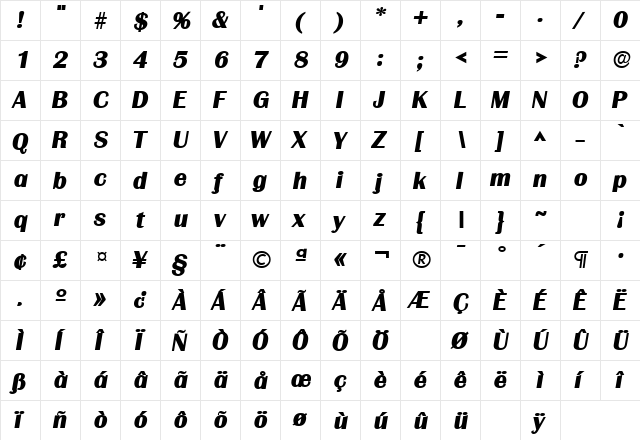
GrenobleLH Bold Italic Font Preview
Design Context for GrenobleLH Typeface
GrenobleLH takes a measured approach to typography — its balanced proportions and neutral character make it a reliable workhorse for both digital and print work. Its italic angle brings a sense of urgency and motion to the letterforms. Its bold stroke weight gives it real presence on the page.